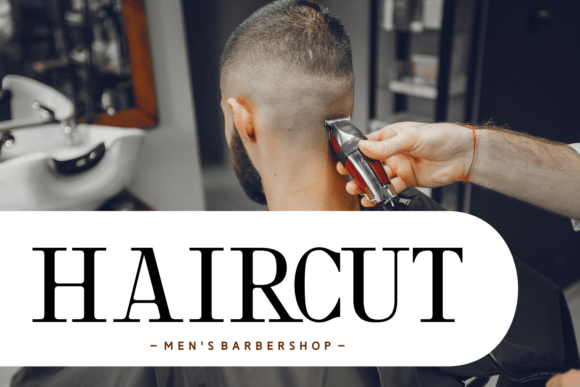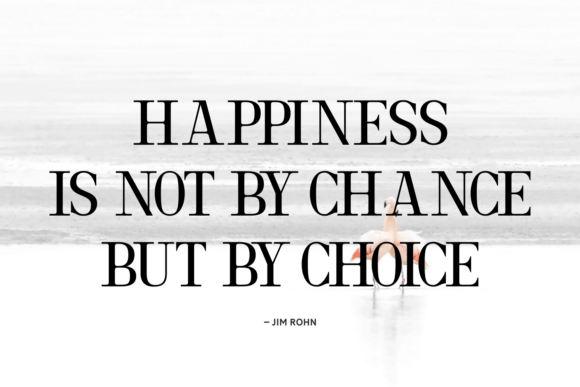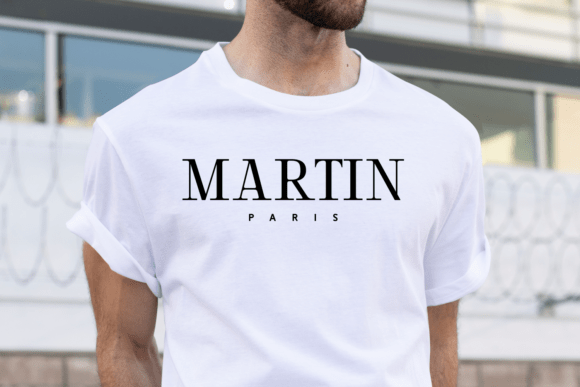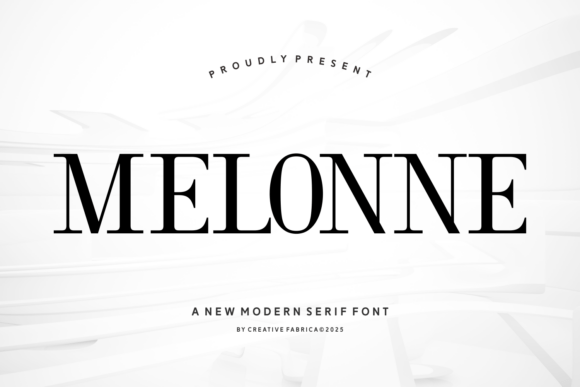
Introduction to Melonne Font
A promotional image for β€œMelonne,” a new modern serif font by Creative Fabrica from the year 2025.
The font itself is a high-contrast serif, exuding a timeless elegance perfect for high-fashion and professional branding .